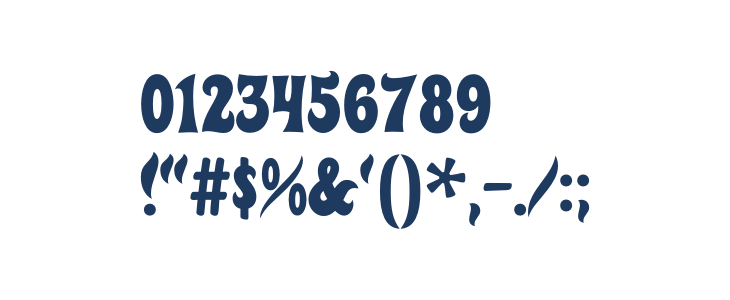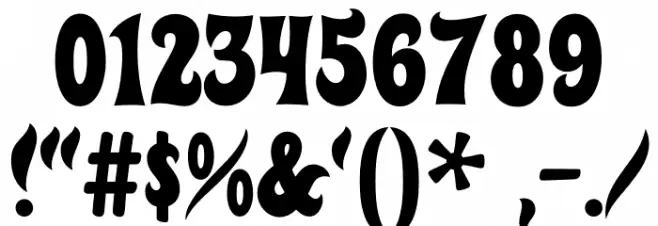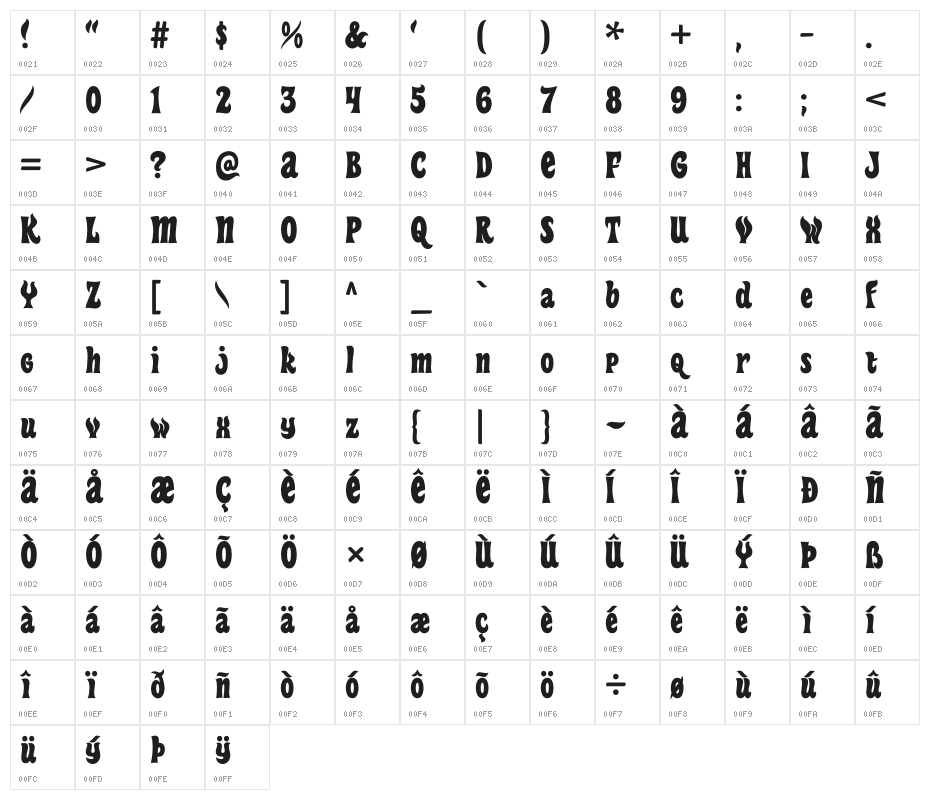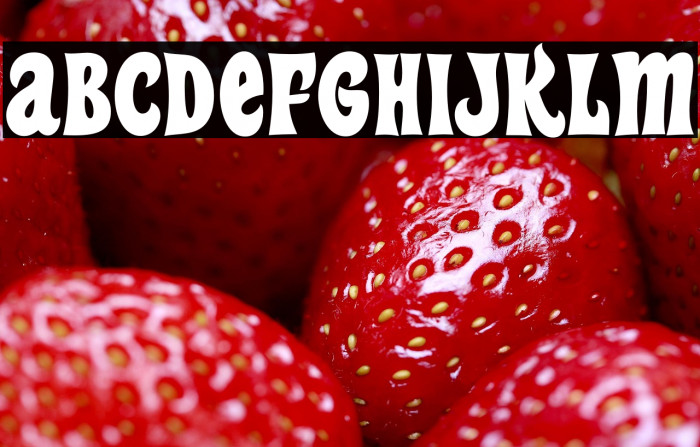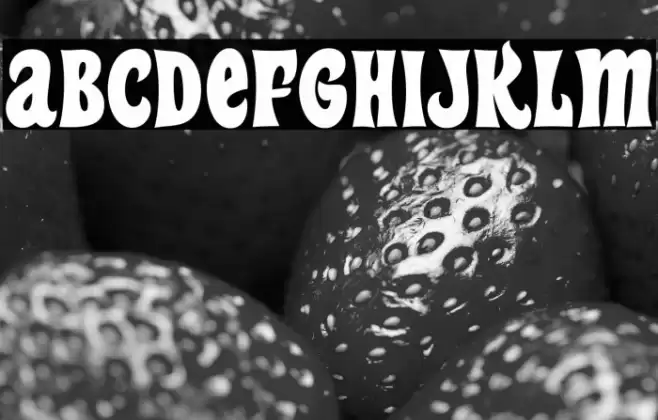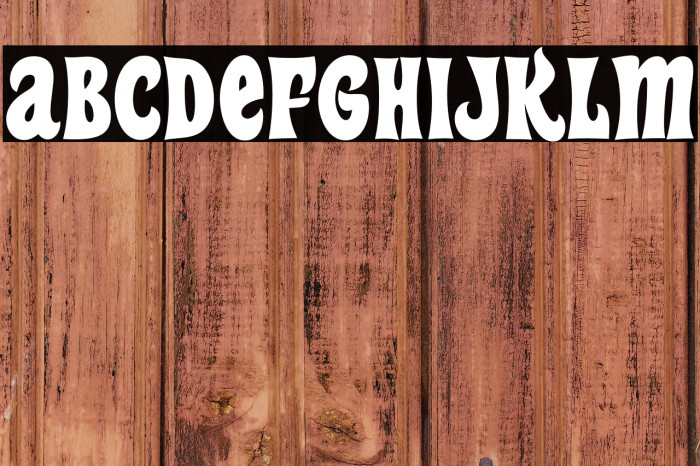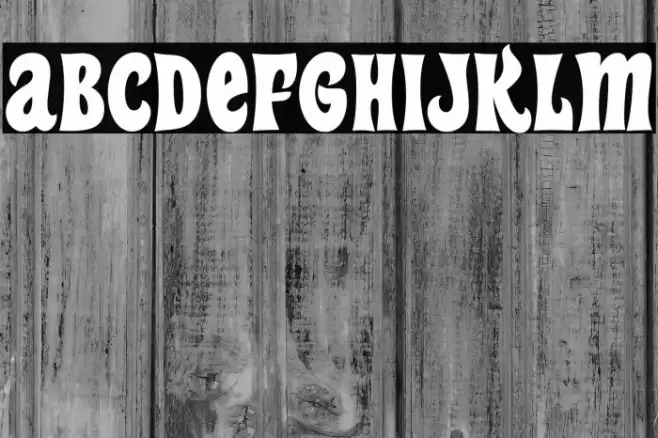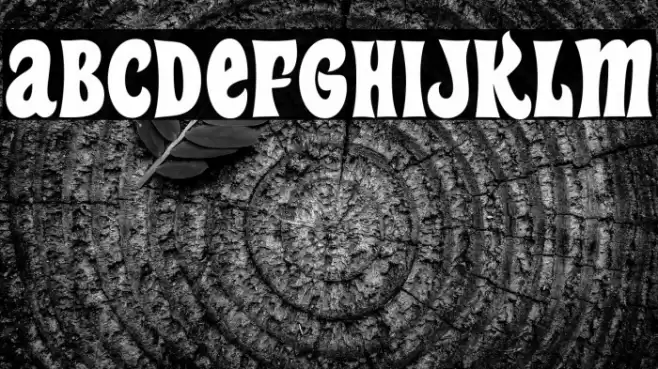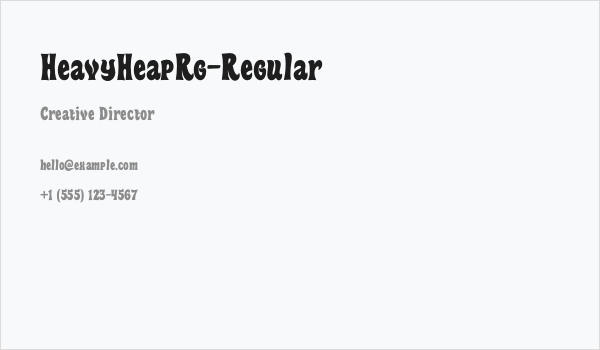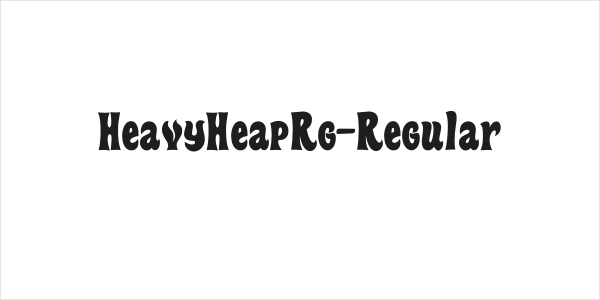
HeavyHeapRg-Regular Font
This font features a bold and playful design with exaggerated curves and thick strokes, creating a sense of movement and energy. The characters have a whimsical, almost cartoonish quality, with varying stroke widths that add a dynamic feel. The uppercase and lowercase letters maintain a consistent style, with rounded edges and a slightly condensed form. Numbers and special characters follow the same playful aesthetic, making the font suitable for eye-catching designs. Its unique style is ideal for projects that require a fun and engaging visual impact.
| Proposed Projects | Ideal for children's books, playful branding, posters, and creative advertising. |